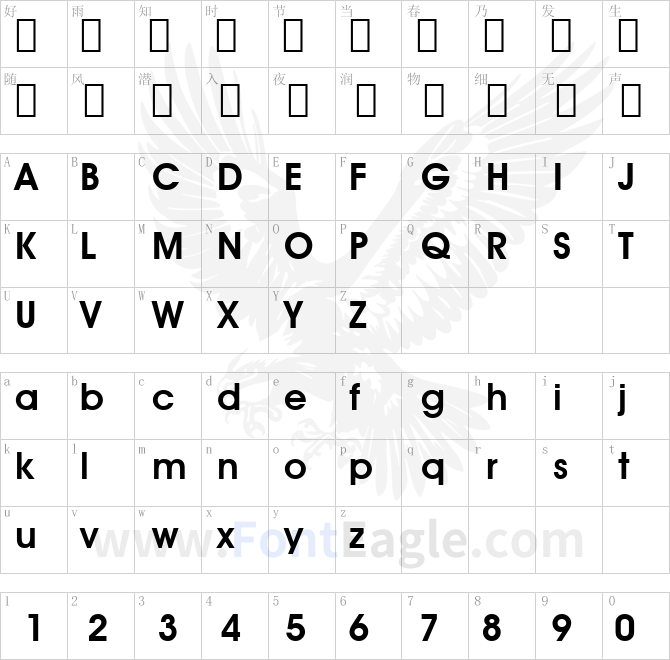
AvantGarde Bk BT Demi.ttf Base Font Information
- Font name:AvantGarde Bk BT
- Font Subfamily:Demi
- Font Subfamily ID:ITC Avant Garde Gothic Demi, Geometric 711
- Font Full Name:Avant Garde Demi BT
- Font Version:mfgpctt-v4.4 Dec 14 1998
- Postscript:AvantGardeITCbyBT-Demi